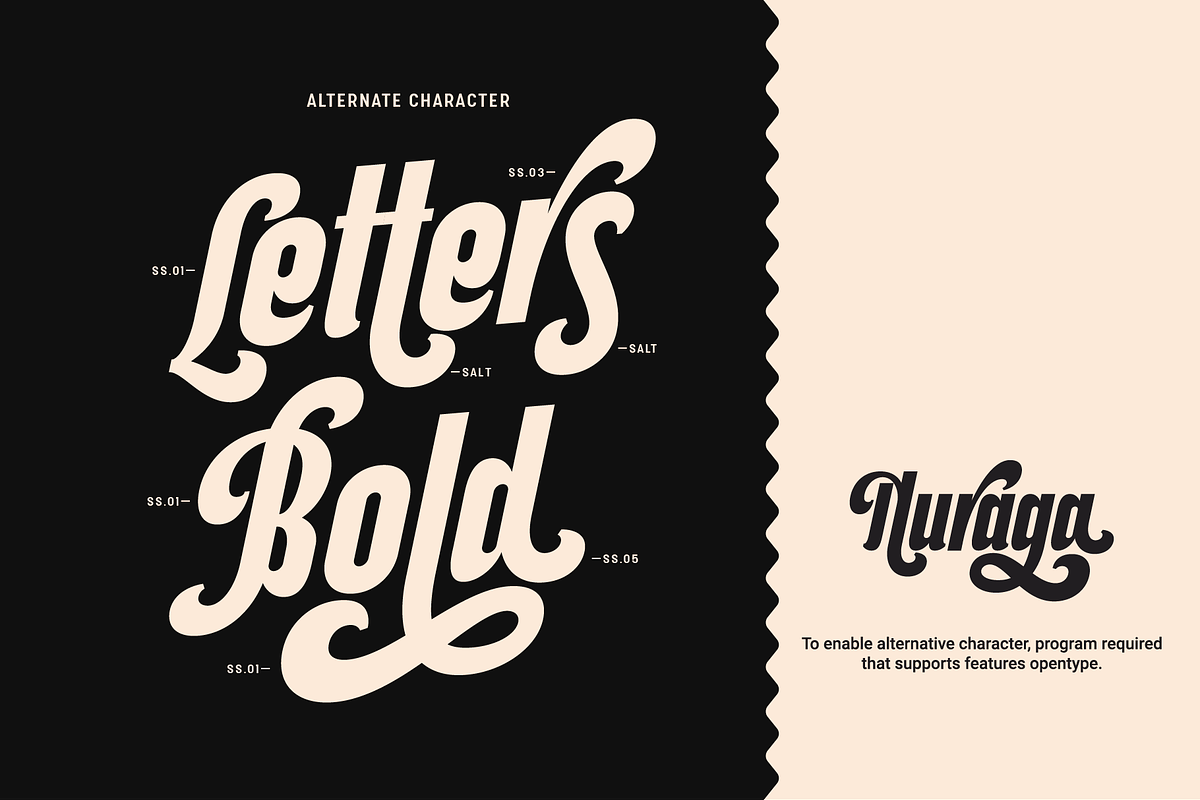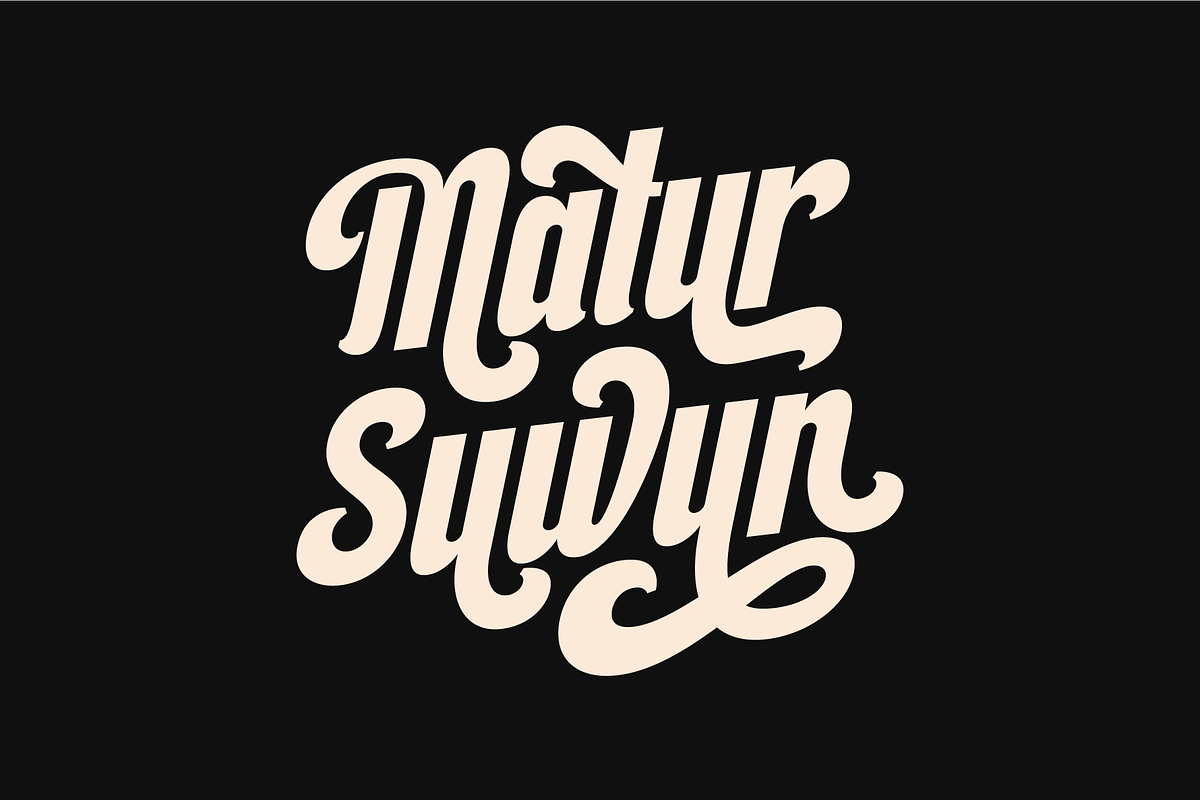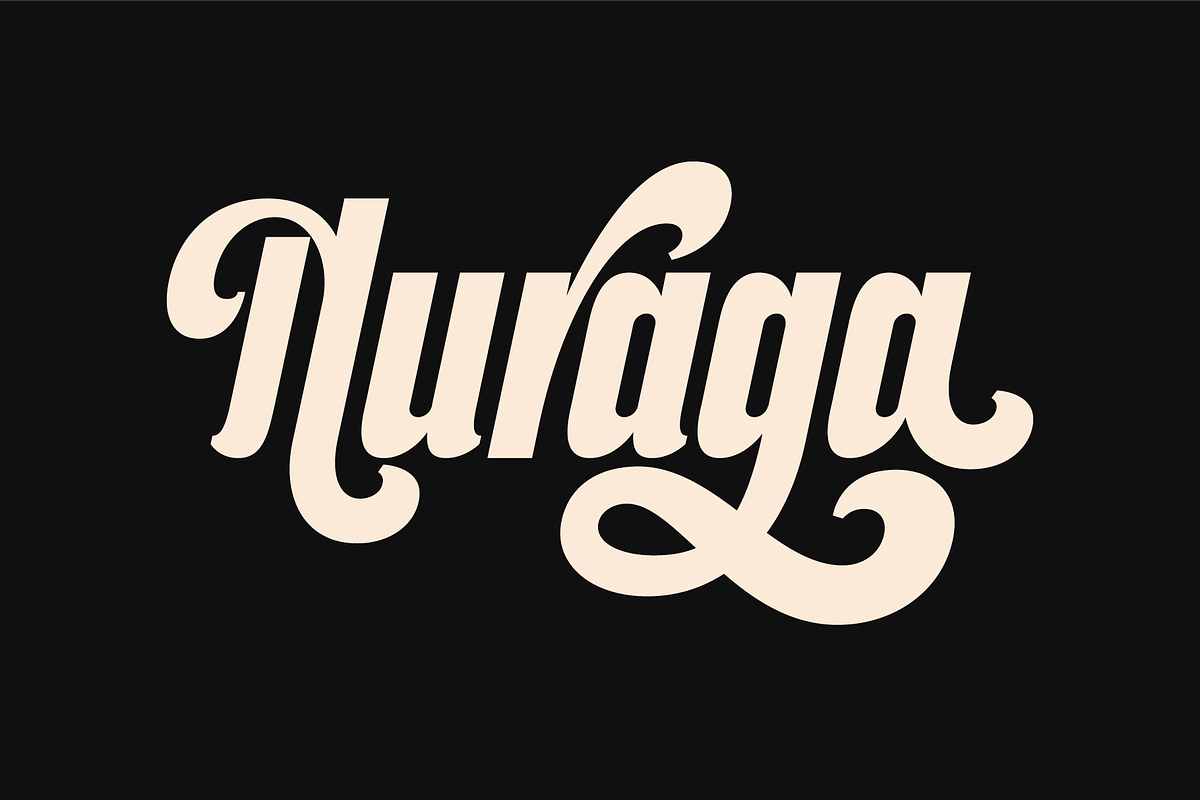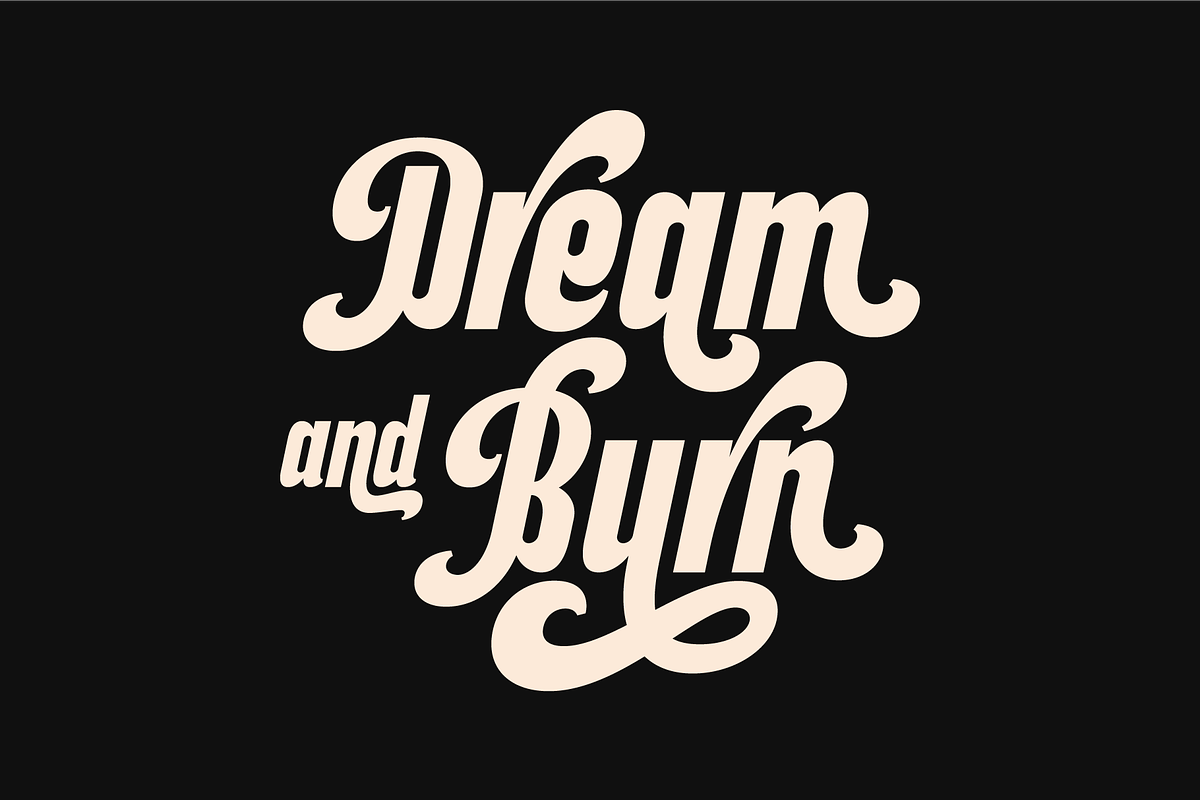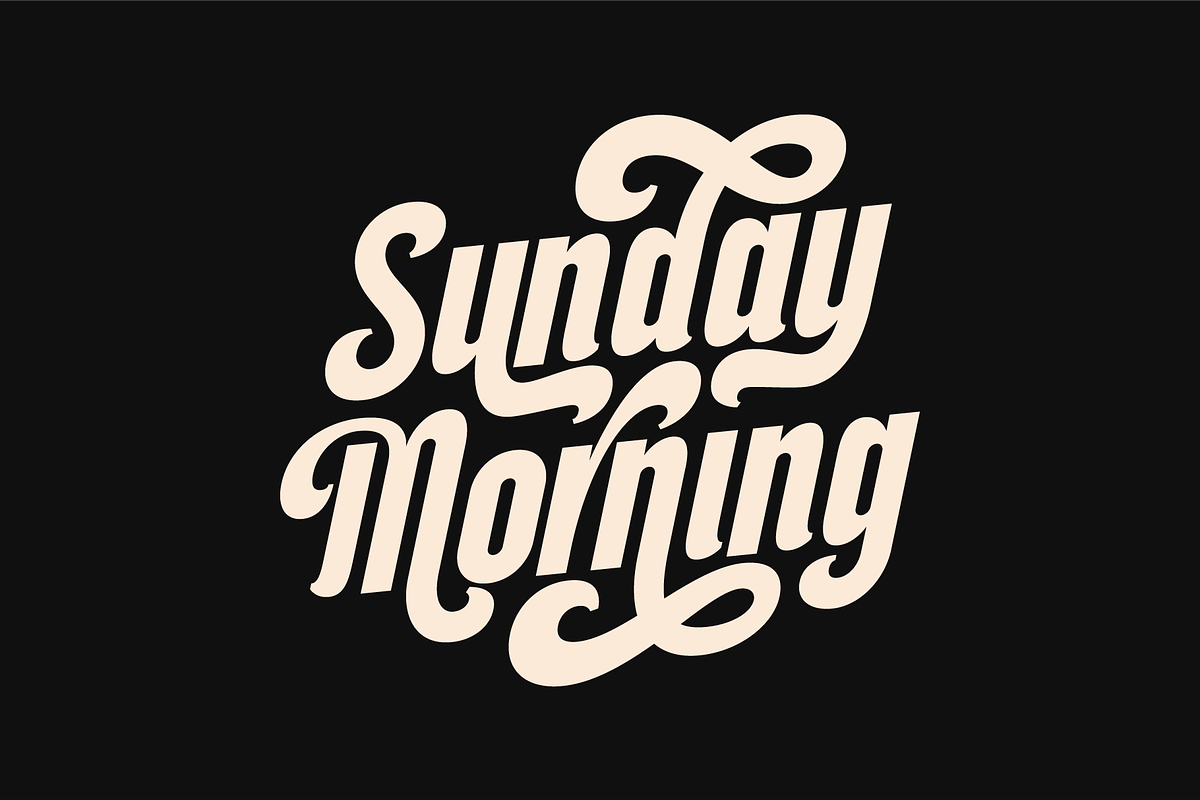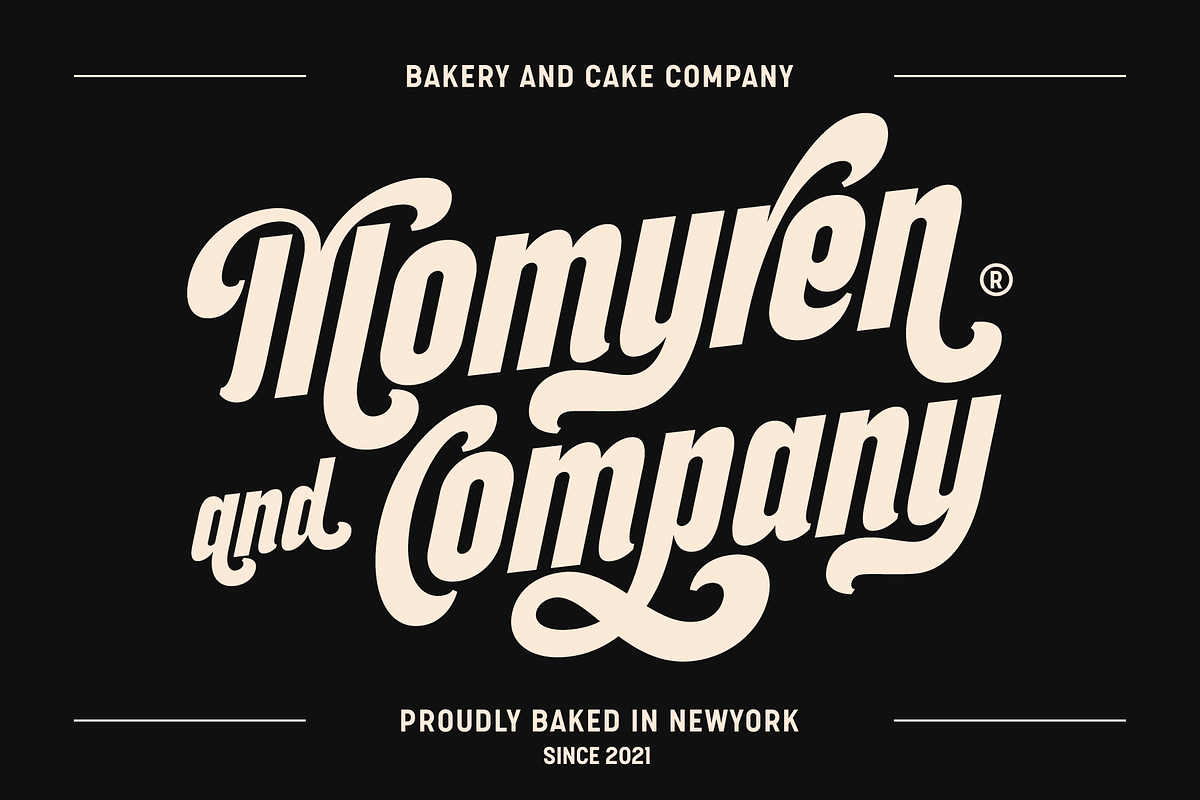
Nuraga
Nuraga is a bold typeface inspired by the commercial poster style of the 60's. Comes with many alternative characters, Nuraga is perfect for your Creative work. With bold characters, this font is perfect for poster headlines, logos, book covers, movie titles or to add a vintage feel to your creative projects.